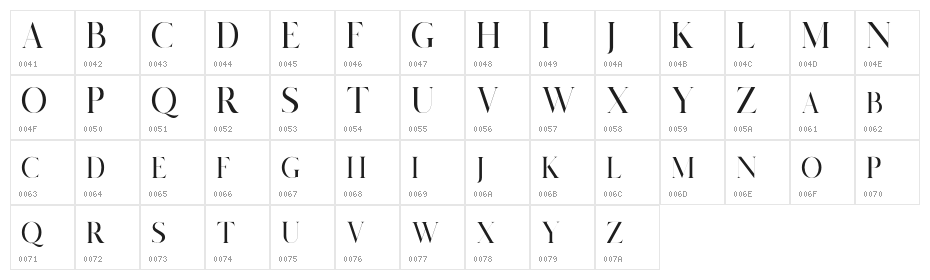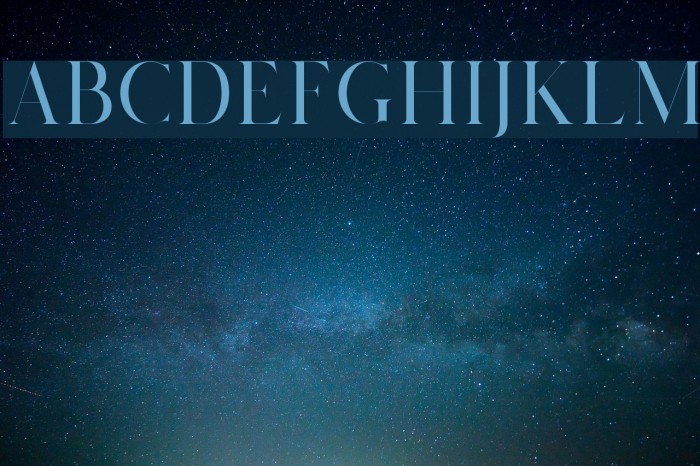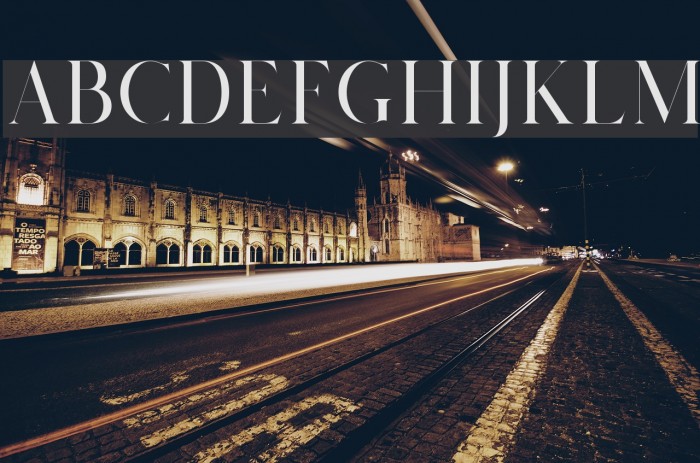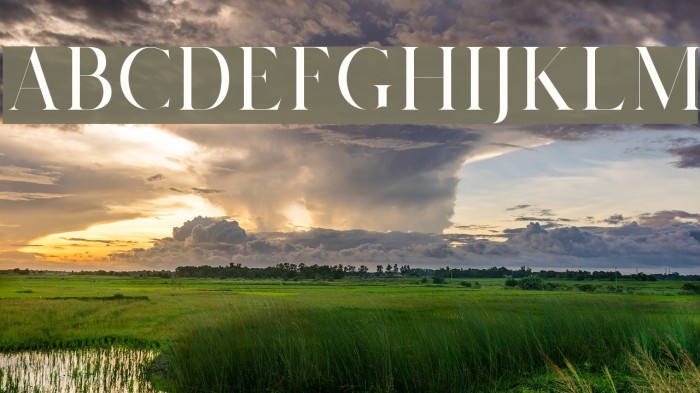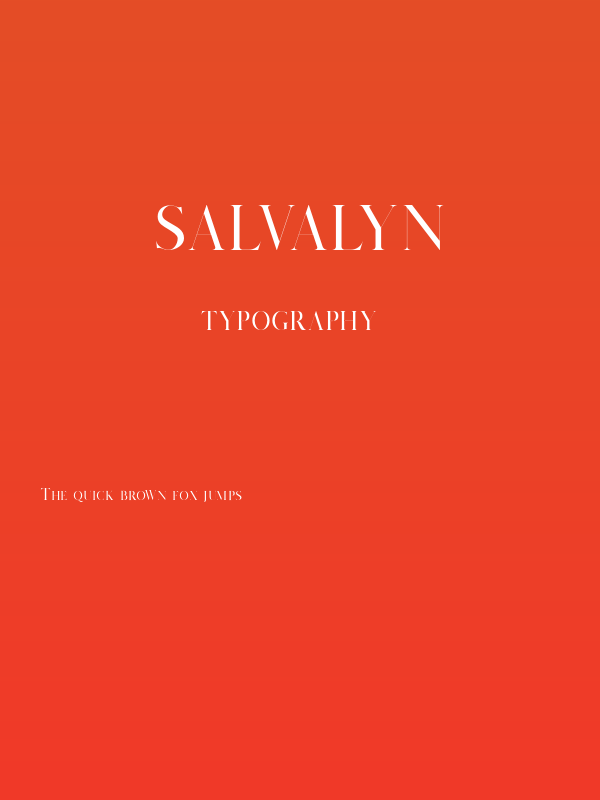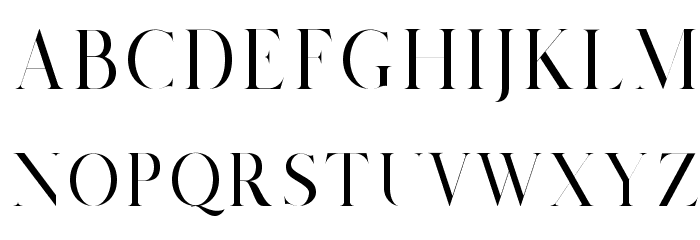
Salvalyn Font
Salvalyn Description
This font features a high-contrast design with elegant, thin strokes and sharp serifs. The uppercase letters are particularly striking, with a modern and sophisticated appearance. The lowercase letters maintain the same level of elegance, offering a cohesive look across different text sizes. The numbers are designed with the same attention to detail, ensuring readability and style. The special characters are crafted to match the overall aesthetic, making them suitable for a variety of uses. This font is ideal for projects that require a touch of luxury and refinement.
| Use Case | Headlines, Logos, Editorial design |
| Proposed Projects | Ideal for luxury branding, editorial design, high-end packaging, and elegant invitations. |